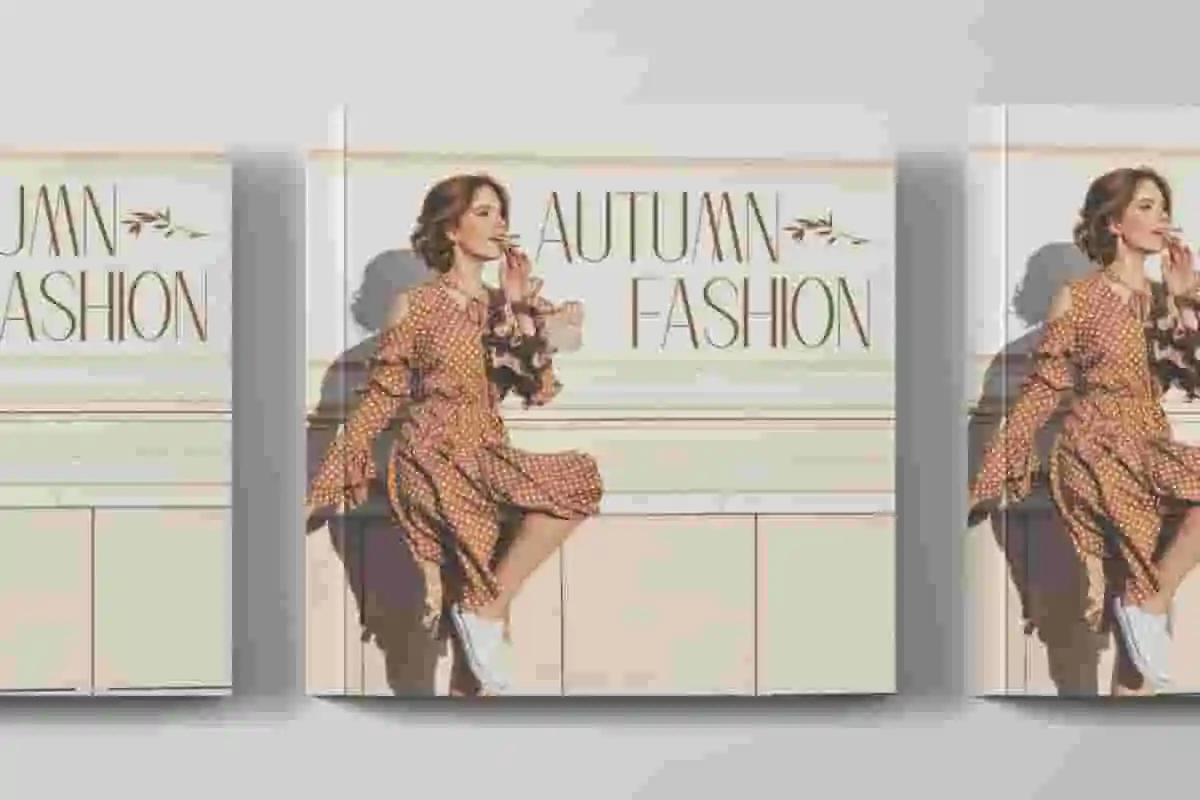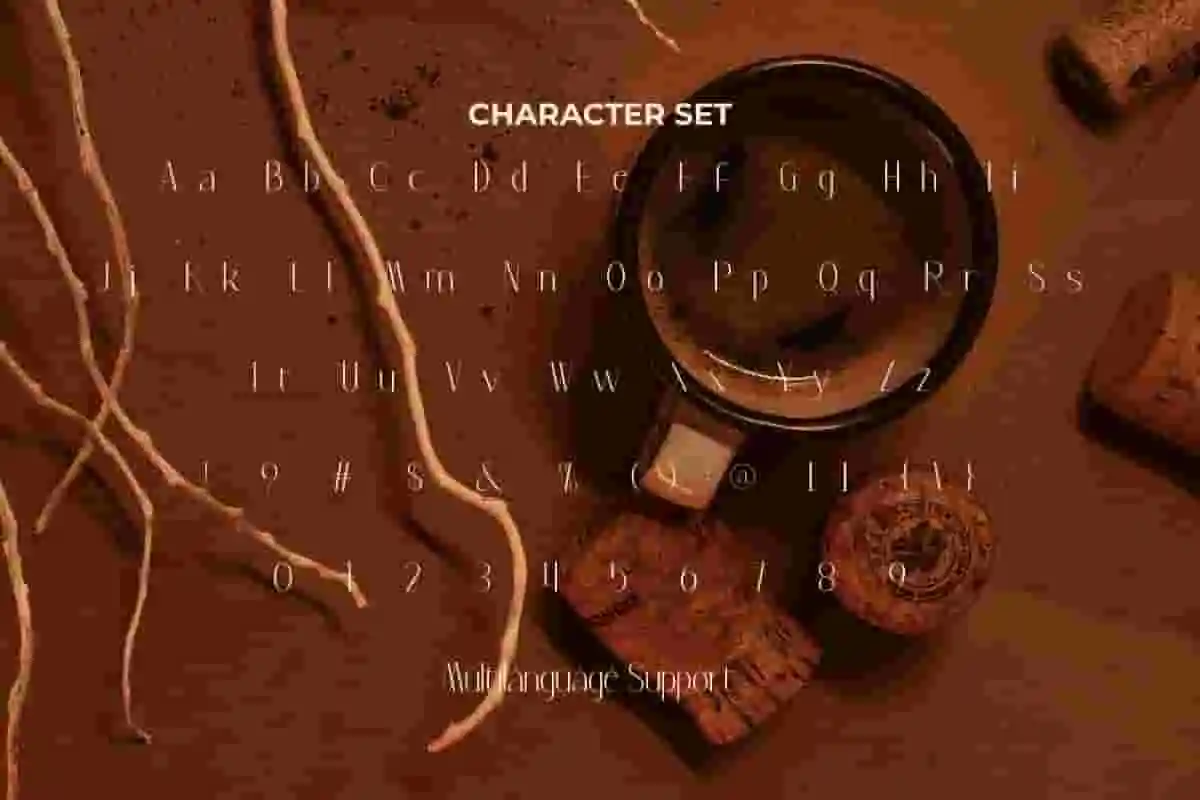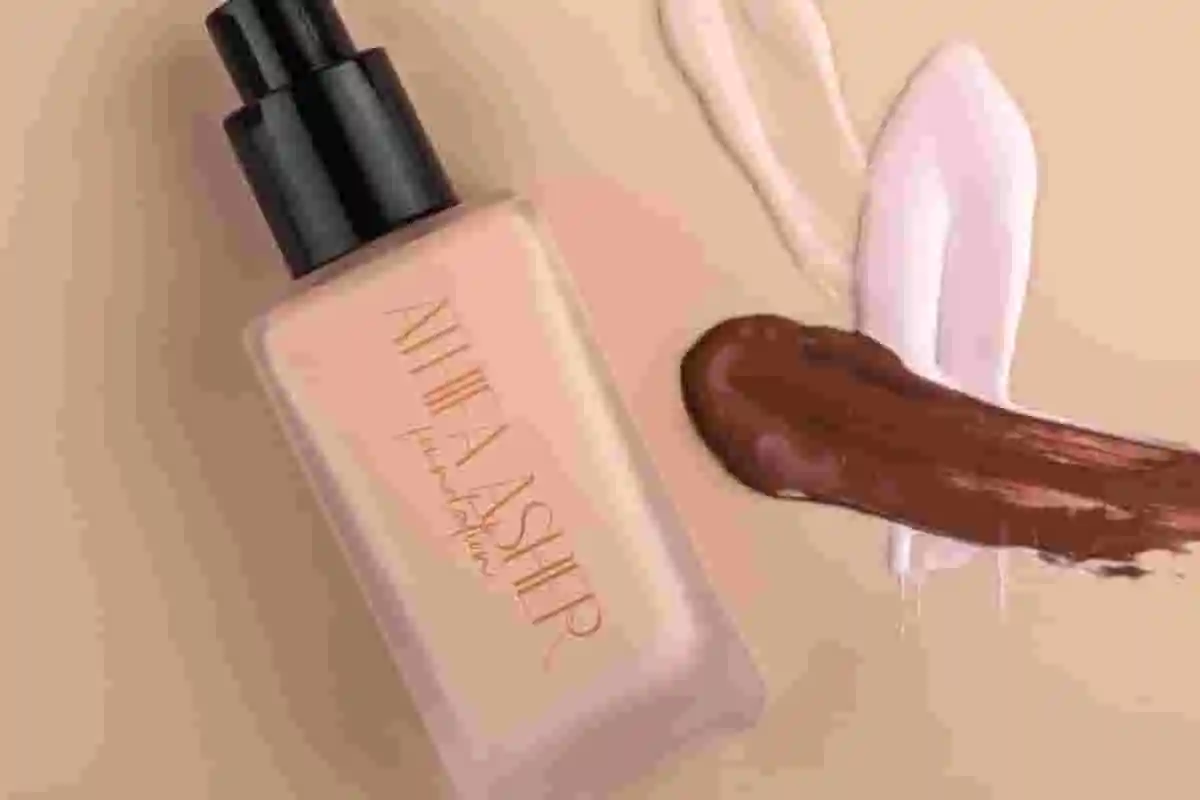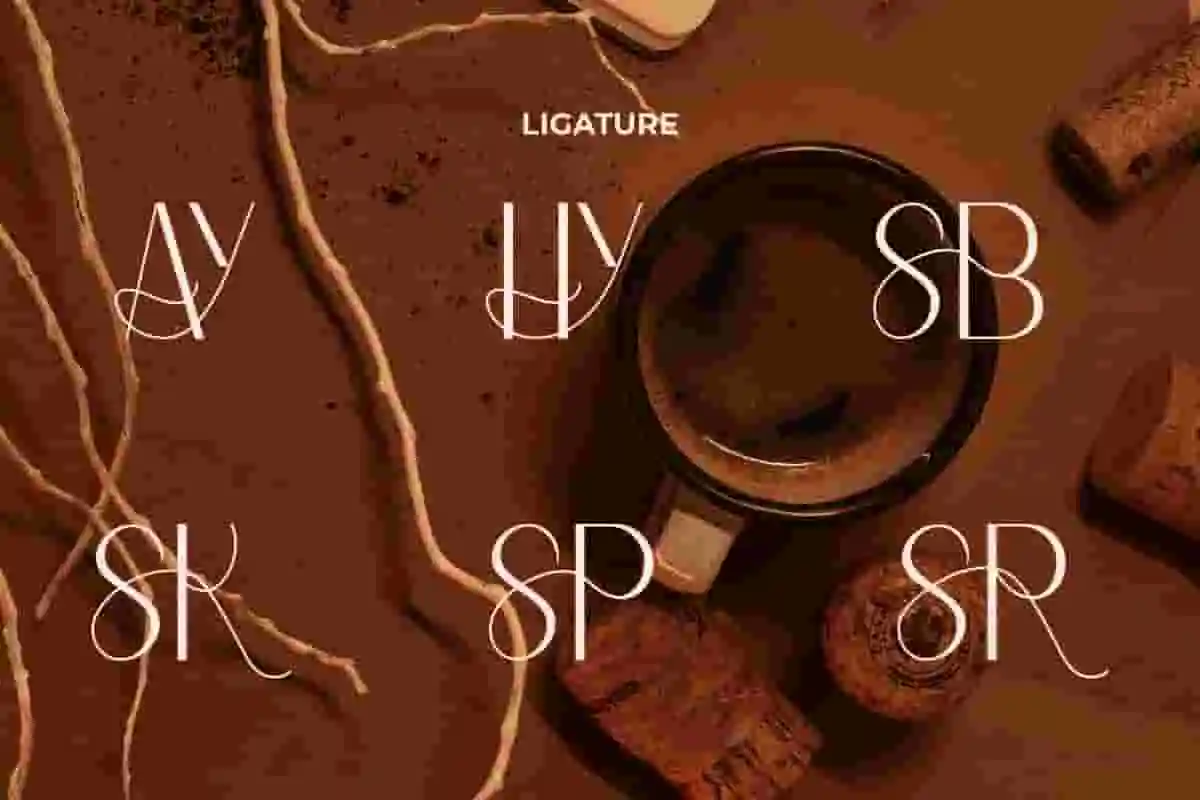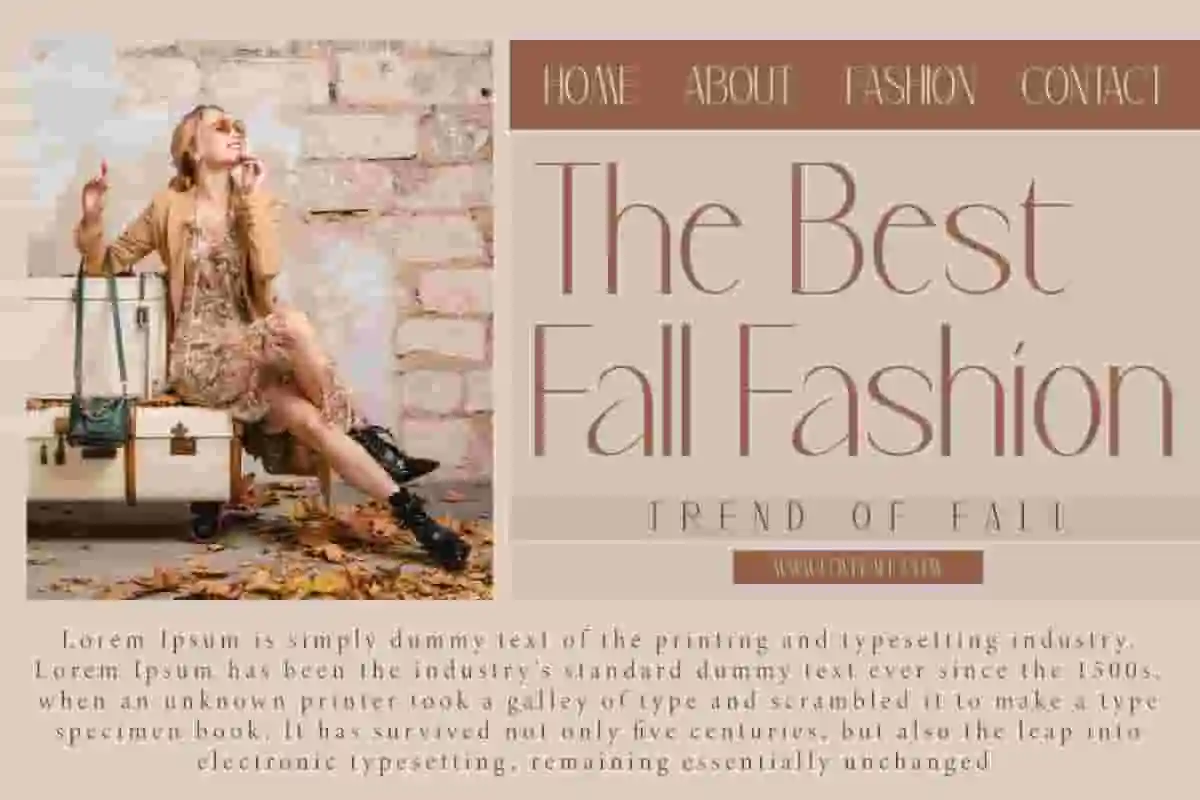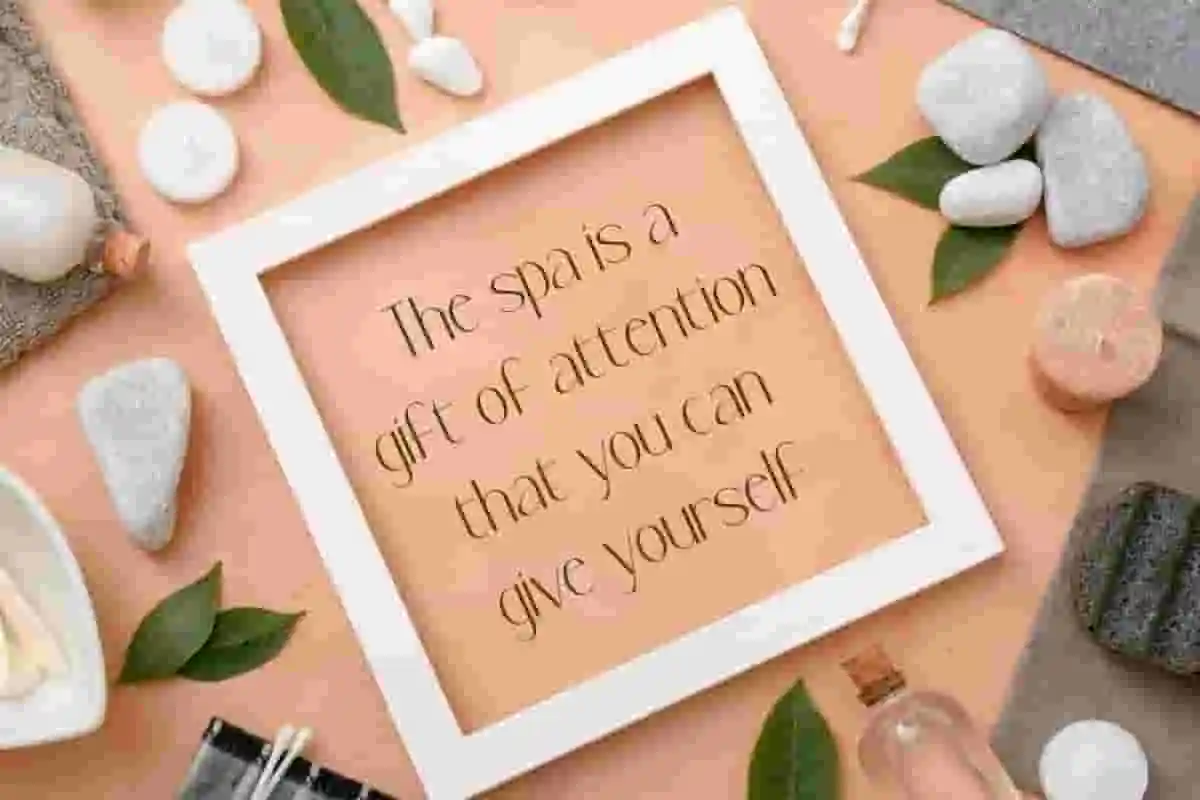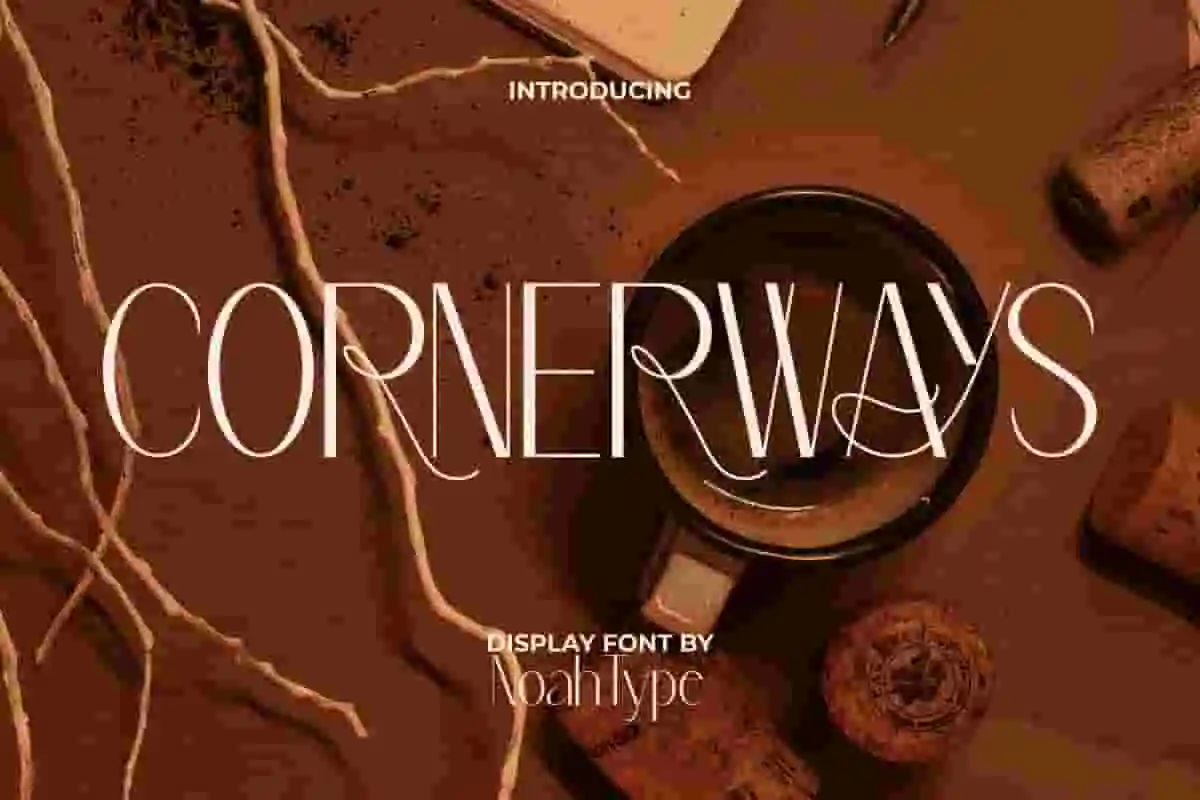
Cornerways Font is a sans serif style display font that has an expensive charm by NoahType. This font character is thin so it can create a clean impression and can be paired with other type of fonts. It will be good for any designs, such as invitation, brand image, custom design, label, marketing material, menu, poster, product packaging, quotes, signage, stationery, web and many more!
Cornerways Font includes a complete set of Uppercase and Lowercase Basic Characters, Numerals, Punctuation and Symbol. The addition of Ligature character of this font will give stunning look and also a perfect choice for many industries, such as beauty product, event or wedding organizer, accessories, advertising, fashion, movie, photography, printing, publishing, spa and salon, travel, etc.